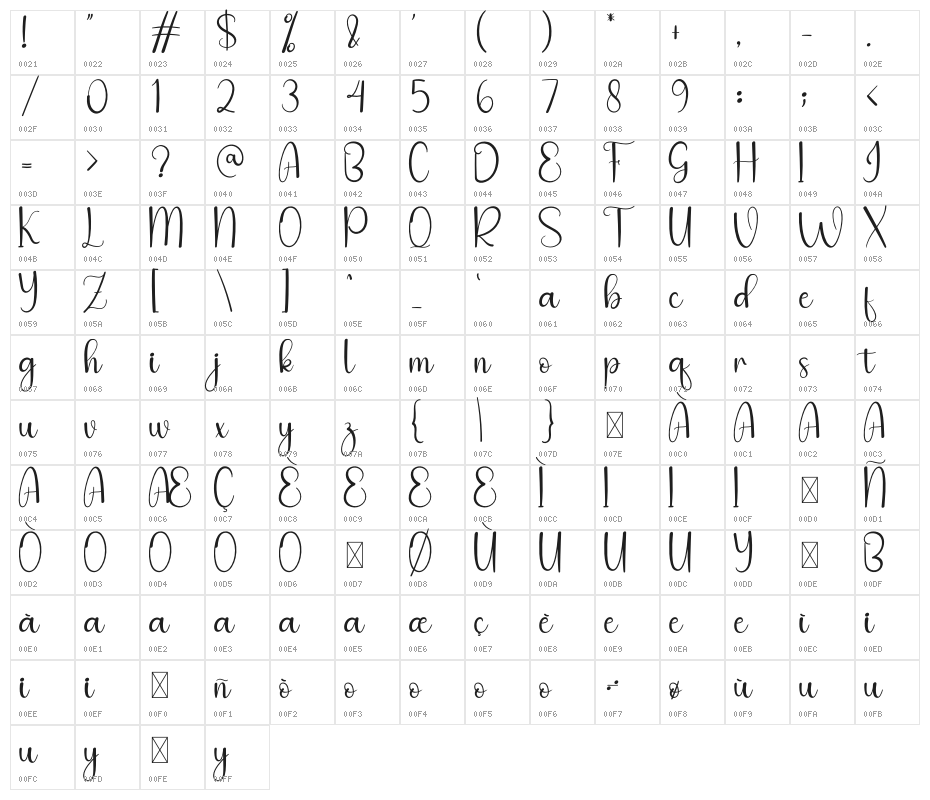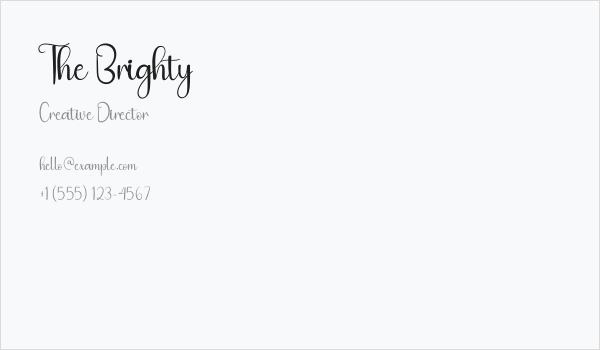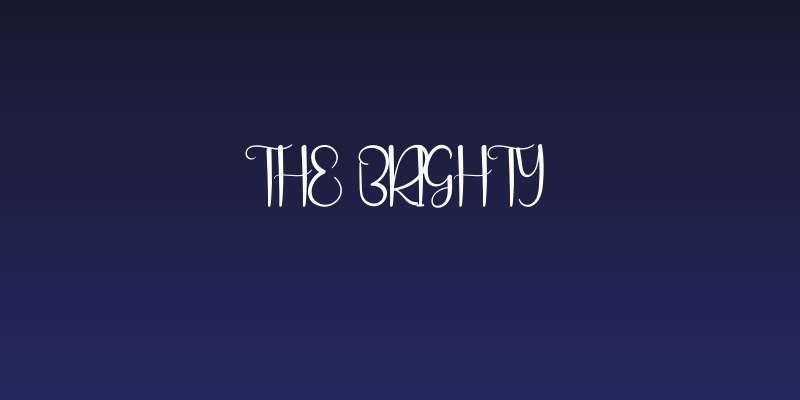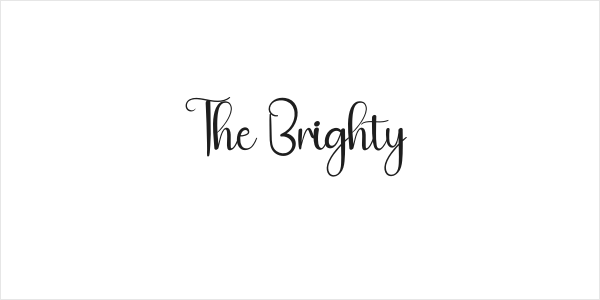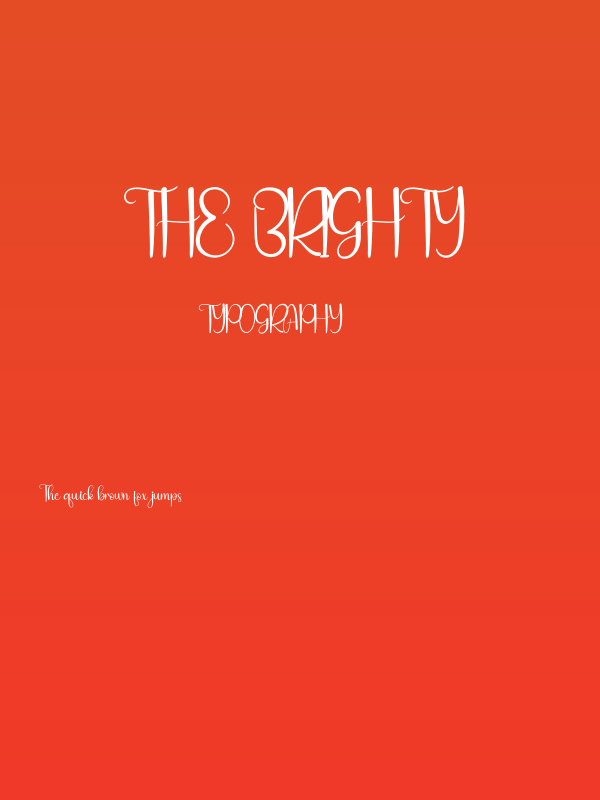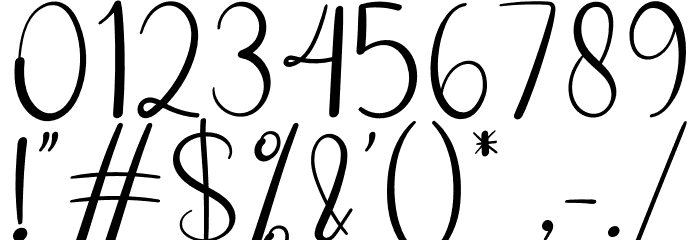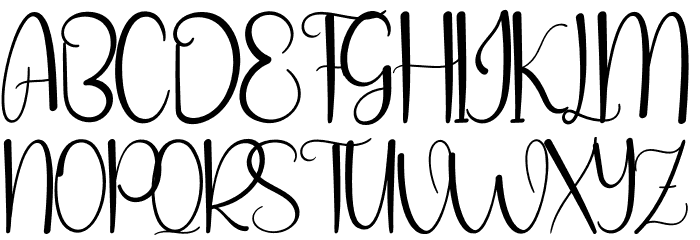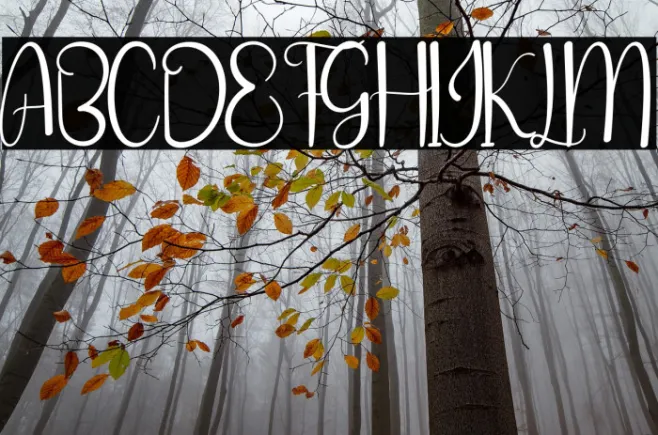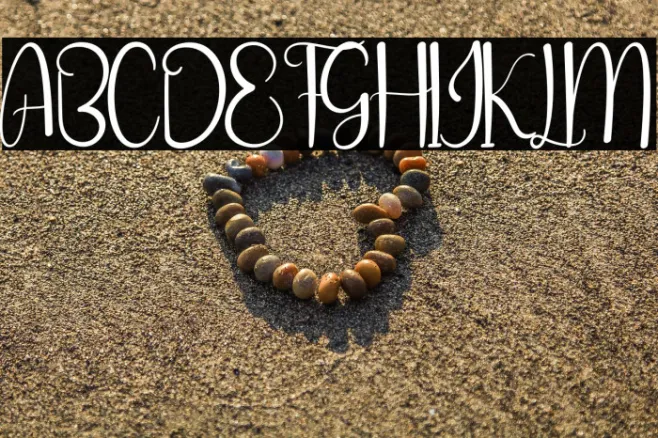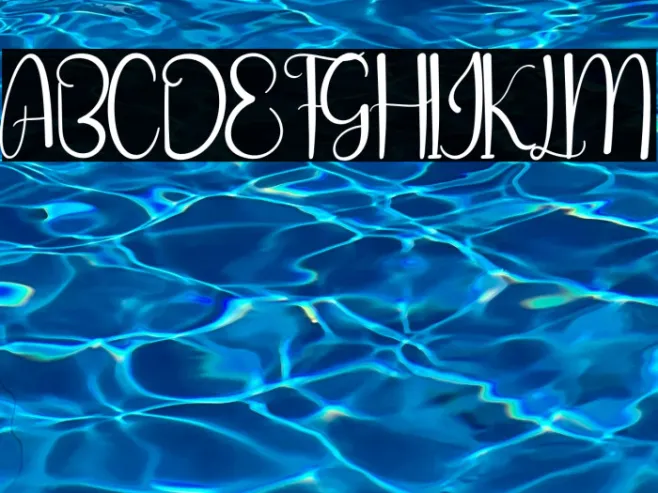
The Brighty Font
The Brighty Description
This font features a playful and whimsical script style, characterized by its flowing, cursive letters with a hand-drawn appearance. The uppercase letters are tall and elegant, with exaggerated loops and curves, while the lowercase letters maintain a consistent, smooth flow. The numerals and special characters complement the overall style with their rounded and fluid forms. The font's design is both artistic and approachable, making it suitable for a variety of creative applications.
| Use Case | Logos, Invitations, Creative projects |
| Proposed Projects | Ideal for greeting cards, invitations, branding, and creative projects that require a personal touch. |